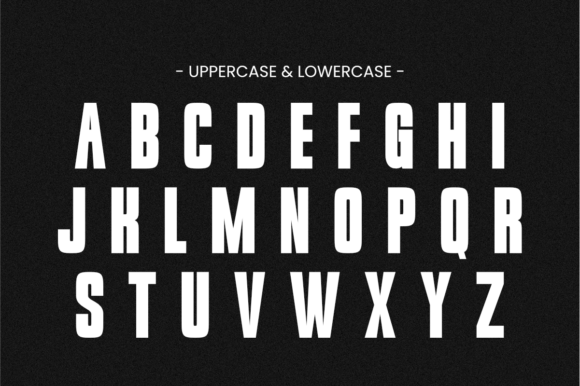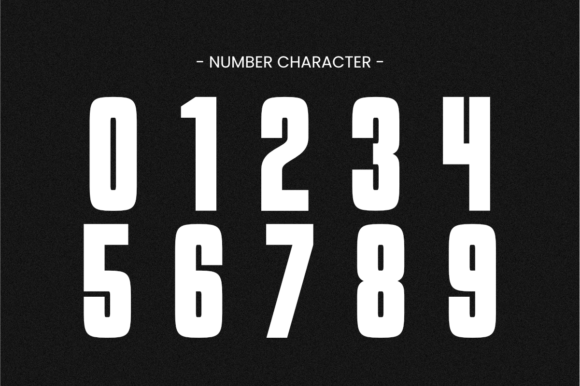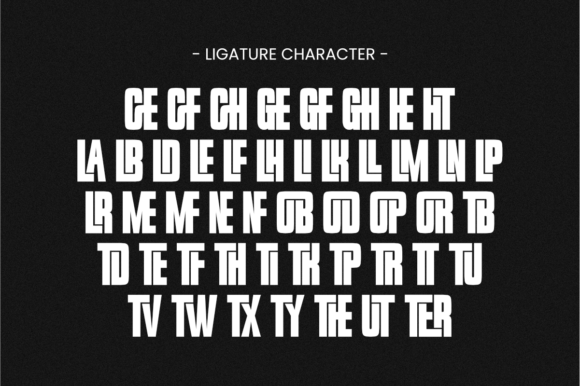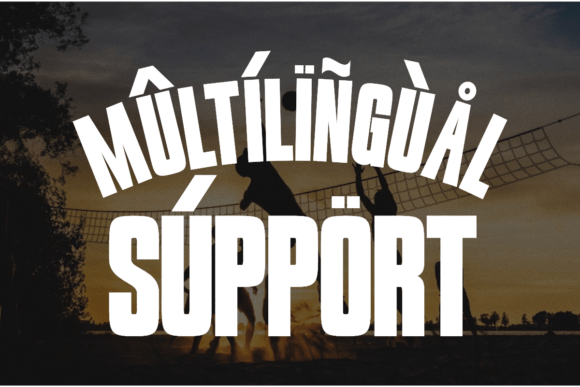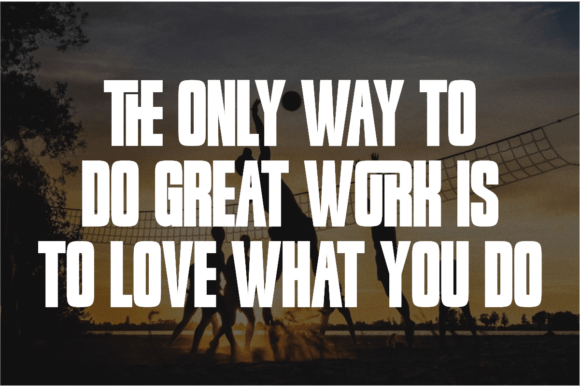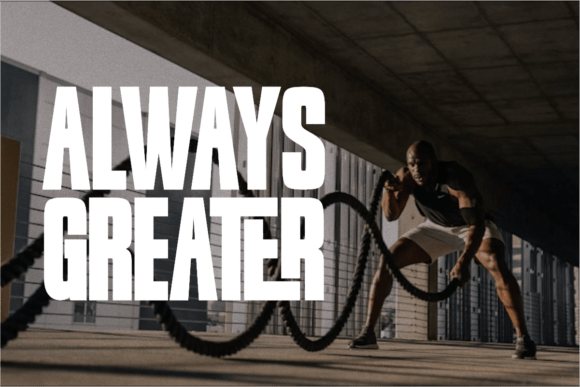
Introducing Greater Font: The Ultimate Ultra-Condensed Sans-Serif for Bold Statements
In the world of design, fonts play a crucial role in conveying messages, evoking emotions, and creating lasting impressions. For designers, crafters, and marketers, finding the right font can make all the difference between a good project and a great one. This is where Greater Font comes in – an ultra-condensed sans-serif font designed to make bold and powerful statements in any project.
Clean, Tall, and Modern Letterforms
Greater Font boasts clean, tall, and modern letterforms that exude confidence and professionalism. Its sleek design ensures that your message stands out, whether you’re working on t-shirt designs, branding, posters, or editorial layouts. The font’s ultra-condensed style allows you to fit more content in a smaller space, making it perfect for projects where space is limited.
Greater Font’s versatility makes it an excellent choice for a wide range of design projects. Here are some of the areas where this font truly shines:
- T-Shirt Design: Create eye-catching and stylish t-shirt designs that grab attention. Greater Font’s bold and modern style ensures that your message or logo stands out on any apparel.
- Branding: Establish a strong brand identity with Greater Font. Its professional look and feel make it perfect for logos, business cards, and other branding materials.
- Posters: Design striking posters that convey your message effectively. The font’s clean and tall letterforms ensure that your poster stands out, whether it’s for an event, promotion, or announcement.
- Editorial Layouts: Elevate your editorial designs with Greater Font’s modern and sleek style. It’s perfect for magazine covers, article headers, and other editorial content.
A Strong and Professional Look
Greater Font brings a strong and professional look to any project. Its bold and modern style instantly grabs attention, making it perfect for marketing visuals, digital designs, and crafts. With Greater Font, you can create stunning designs that leave a lasting impression on your audience.
Why Choose Greater Font?
Here are some compelling reasons to choose Greater Font for your next project:
- Unique and Modern Style: Greater Font’s ultra-condensed sans-serif style sets it apart from other fonts. Its modern look and feel ensure that your designs stand out.
- Highly Versatile: The font’s versatility makes it suitable for a wide range of design projects, from t-shirt designs to editorial layouts.
- Professional and Strong Look: Greater Font brings a strong and professional look to any project, making it perfect for designers, crafters, and marketers.
Greater Font is an ultra-condensed sans-serif font designed to make bold and powerful statements in any project. Its clean, tall, and modern letterforms, combined with its PUA encoding, make it an excellent choice for designers, crafters, and marketers. Whether you’re working on t-shirt designs, branding, posters, or editorial layouts, Greater Font brings a strong and professional look that instantly grabs attention. With its versatility, modern style, and effortless customization features, Greater Font is the perfect addition to your font library.